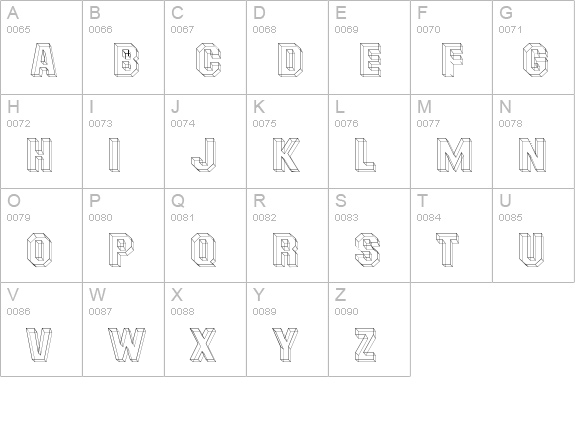
MasheenIIID Font Details
MasheenIIID is a modern and stylish font that is sure to catch the eye of any designer or typographer. With its sleek lines and bold presence, this font is perfect for logos, headings, posters, and any other design project that requires a touch of sophistication. What sets MasheenIIID apart from other fonts is not only its striking visual appeal but also the fact that it is available for free. Yes, you read that right – this incredible font can be downloaded at absolutely no cost from FontsMarket.com. This means that you can enhance your designs without breaking the bank. MasheenIIID offers a wide range of characters, including uppercase and lowercase letters, numerals, punctuation marks, and special symbols. Its versatility allows it to be used in various contexts, from elegant and formal designs to more casual and playful ones. The clean and modern lines of MasheenIIID make it highly legible, even at smaller sizes. This makes it a fantastic choice for body text in magazines, brochures, and websites. Its readability combined with its aesthetic appeal ensures that your message will be conveyed effectively and stylishly. Whether you are a professional designer or a DIY enthusiast, MasheenIIID is a font that will elevate your projects to new heights. Its contemporary and refined style will make any design stand out from the crowd, leaving a lasting impression on your audience. So why wait? Head over to FontsMarket.com and download MasheenIIID for free today. Open up a world of possibilities and watch as your designs come to life with this exceptional font. Don't miss out on the opportunity to add a touch of sophistication to your work – get MasheenIIID now and let your creativity soar.